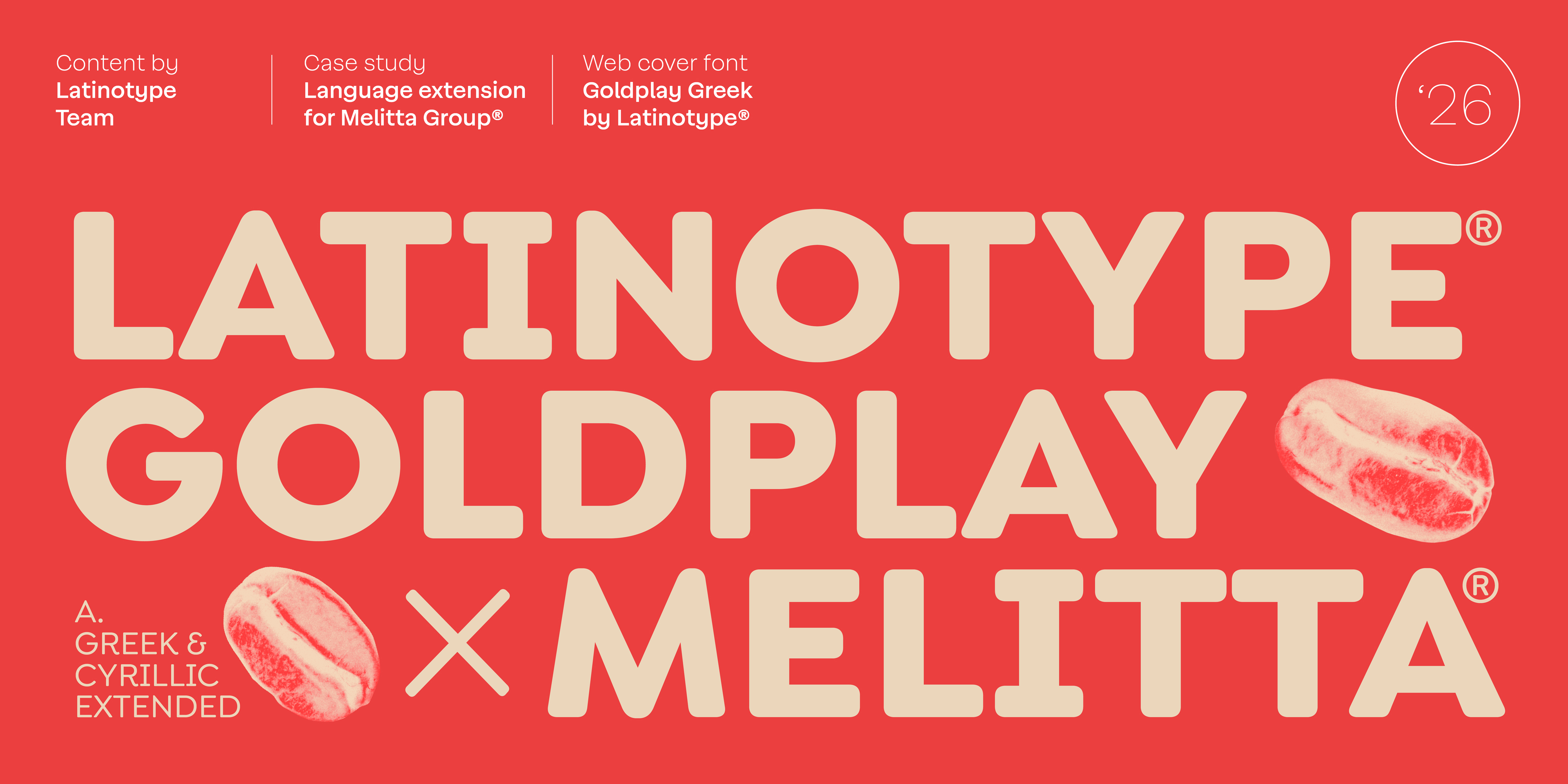
Melitta
One Font License. Three Scripts. One Melitta.
Melitta, the global coffee brand present in over 50 countries, commissioned Latinotype to extend Goldplay — its corporate typeface — to include Cyrillic and Greek character sets, securing consistent brand identity across every market through a single enterprise font licensing agreement.
Founded in Germany in 1908 and inventor of the paper coffee filter, Melitta adopted Goldplay as the cornerstone of its renewed identity in 2021 — a rebrand that earned the German Brand Award 2022. Designed by Enrique Hernández, this geometric sans serif balances precision with rounded terminals: technical enough for a century-old innovator, warm enough for a brand woven into millions of morning rituals.
The challenge was straightforward: Goldplay only covered the Latin alphabet. To maintain brand coherence in Russia, Greece, and beyond, every new character had to feel like a natural extension of the same family. Latinotype designed Cyrillic letterforms — Д, Ж, Ц — from scratch, and resolved Greek descenders in η and μ to match the depth of their Latin counterparts. Native speakers confirmed that each form adhered to local typographic conventions without compromising Goldplay’s visual DNA.
The result is a three-script system that reads as one. When German, Russian, and Greek appear together on packaging, websites, or presentations, everything feels like Melitta. Brand identity doesn’t depend on language — language adapts to the brand system.